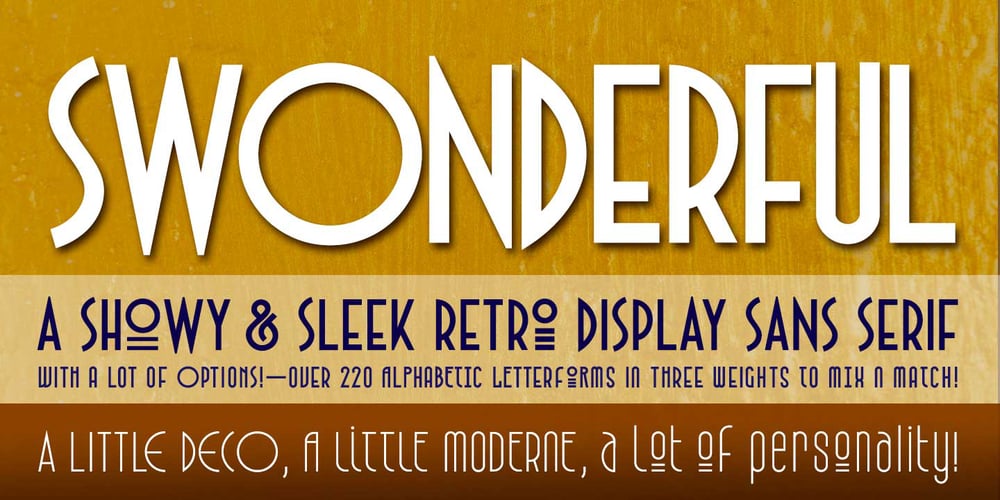
Swonderful Font Family was designed by DC Scarpelli and published by The Ampersand Forest. Swonderful contains 3 styles and family package options. Everyone loves an Art Deco typeface. And there are hundreds of similarly-designed deco faces out there! But not one of them seems to have every form of every character that you want or need at any given moment. That’s why Swonderful was created! It has more letterform variations than you can shake a stick at (if you’re inclined to shake sticks at things). With four variations of every uppercase form, two variations of every lowercase form (plus diacritical characters for the standard set), you’re bound to find the character you need for any given project, whether the style is French Art Deco, American Streamline Moderne, or Jazzy Midcentury Gaspipe. Just switch between stylistic sets! And you’ll find all those characters in three standard weights: Light, Regular, and Bold. They’re designed as a unicase, so they’re all height-compatible, and every set works with every other set, so you can mix and match to your heart’s delight!